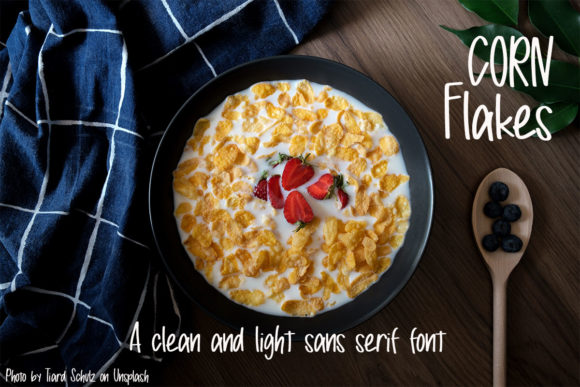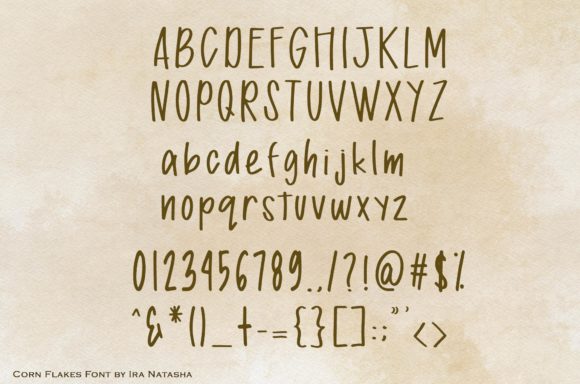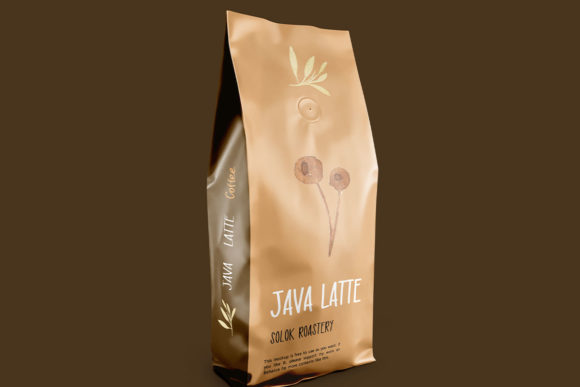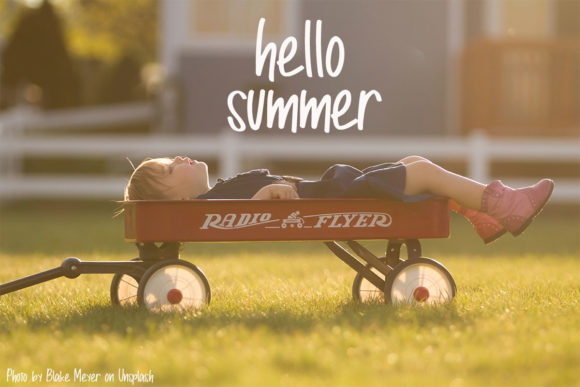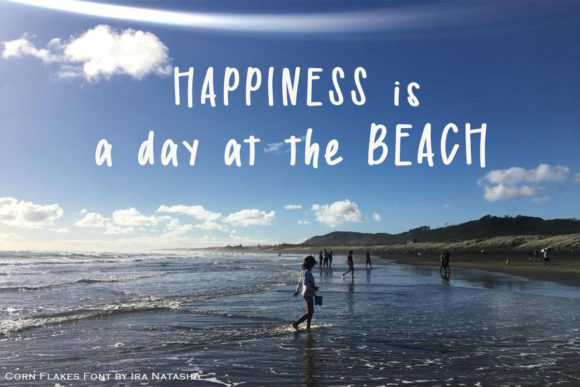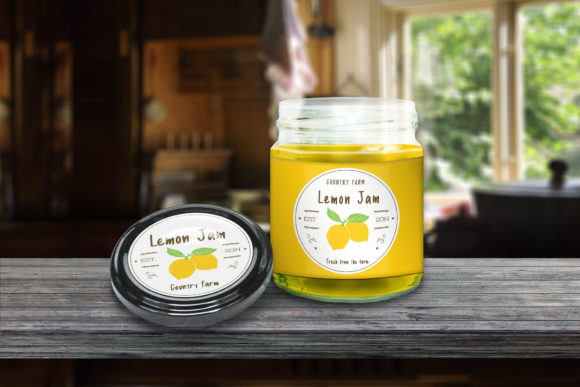
Corn Flakes Font
About Corn Flakes Font
Corn Flakes is a smooth handwritten font, with a casual touch, able to elevate a wide range of design projects to the highest level! It is perfect for logos, greeting cards, packaging, branding and much more!